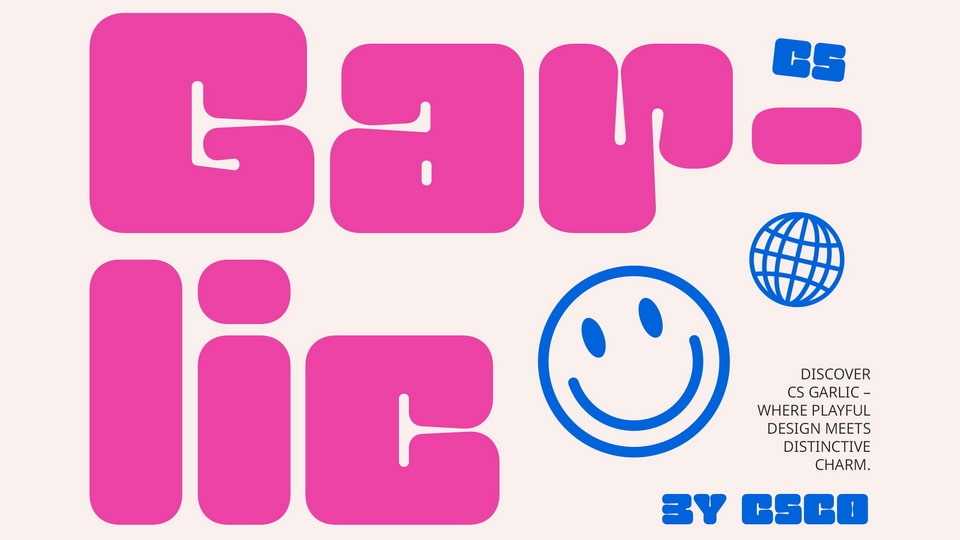
Download CS Garlic font, a vibrant display typeface featuring bold and funky bubble shapes, designed to inject creativity and cheerfulness into your designs.
Designer: Craft Supply Co